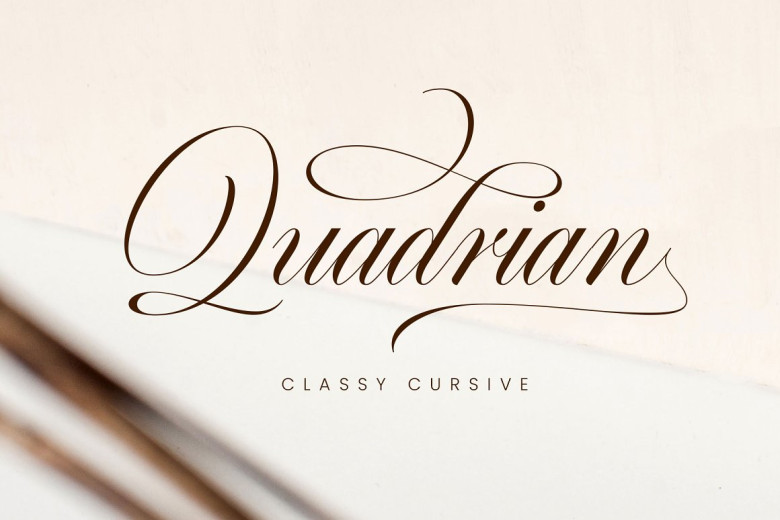
Quadrian Font
Say Hello to Quadrian, a modern brush calligraphy font. With consistent brush strokes carefully designed, this beautiful script font gives a minimalist , luxurious and classy feel. Quadrian takes classical calligraphy as its source of inspiration. It is perfect for anything that needs an elegant, beautiful, feminine and dramatic look. This font can be used in weddings, invitations, logotypes, romantic quotes, labels and branding.
Quadrian contains a full set of characters, plus hundreds more alternate characters which can be used to enrich your designs. A total of 500+ glyphs that you can mix and match together and multilingual support!
Quadrian Script Calligraphy Font